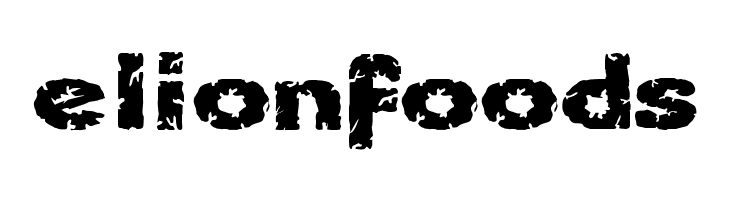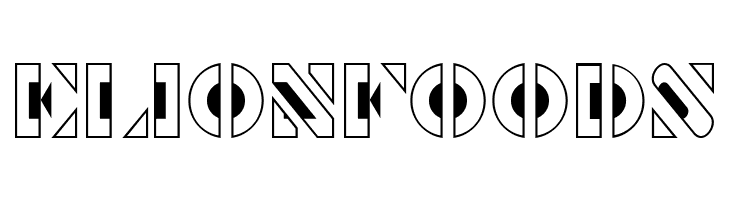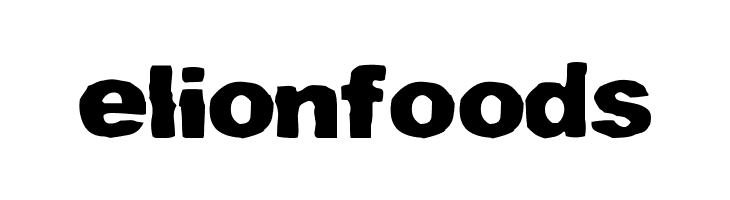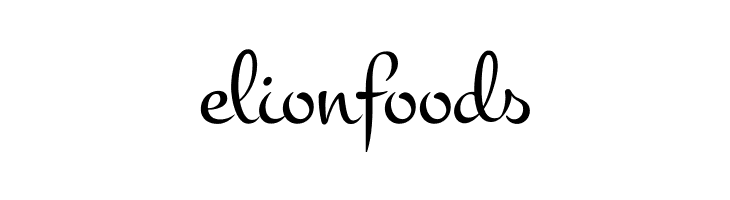
A geometric stencil-inspired font with bold lines and sharp angles.
A bold, geometric font with a futuristic and modern aesthetic.
A decorative font inspired by vines and branches, featuring organic and intricate designs.
A rugged, textured font with a hand-drawn, distressed style.
A modern, decorative font with geometric line patterns creating an abstract appearance.
A bold, distressed font with a gritty, urban aesthetic.
An elegant, ornate script font with flowing, decorative letterforms.
A charming and elegant script font with fluid, graceful strokes.